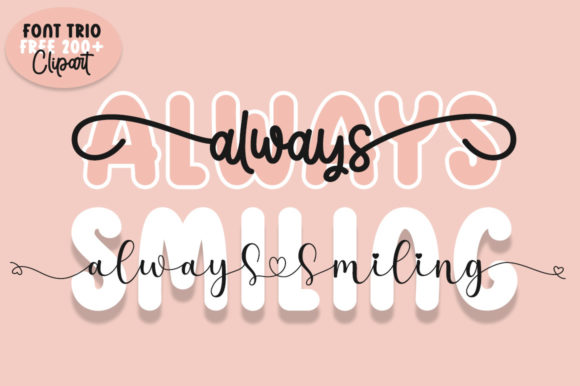
Unleash your creativity with Always Smiling Font - the ultimate script font family designed to ignite joy and captivate your audience. Crafted by the talented hands of Fillo Graphic, this trio of fonts dances together in perfect harmony, ready to add a dash of cheer to your design endeavors.
Imagine your words taking on a life of their own, flowing effortlessly across the page with a touch of whimsy and elegance. Always Smiling Font is the perfect companion for craft beer labels, greeting cards, social media posts, branding projects, and any design that calls for a cheerful and inviting touch.
With Always Smiling Font, you'll embark on a typographic adventure where each letter dances with delight and charm. The Regular font exudes a playful personality, playfully bouncing across the page, while the Slant font adds a touch of sophistication with its graceful curves and playful angles. And for those seeking a touch of artistic flair, the Swash font awaits, ready to adorn your designs with intricate flourishes and elegant embellishments.
Embrace the joyous spirit of Always Smiling Font and let your creativity soar. Transform your designs into captivating masterpieces that radiate happiness and charm. With Always Smiling Font by your side, your words will dance off the page, spreading joy and captivating hearts wherever they go.